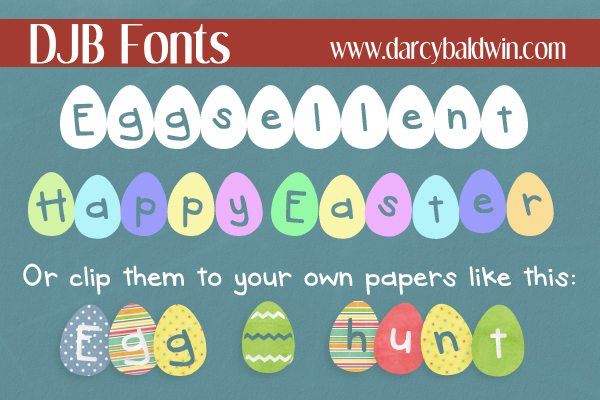
DJB Eggsellent Font
This font is Eggsellent!! Happy Easter from DJB Fonts!
Spring is in the air, and the Holy week is almost over. I hope you’ve had a time full of hope and joy in the Promise of a Risen Savior. Here’s a little font that my son asked for that I thought I’d whip up for him and give to you!